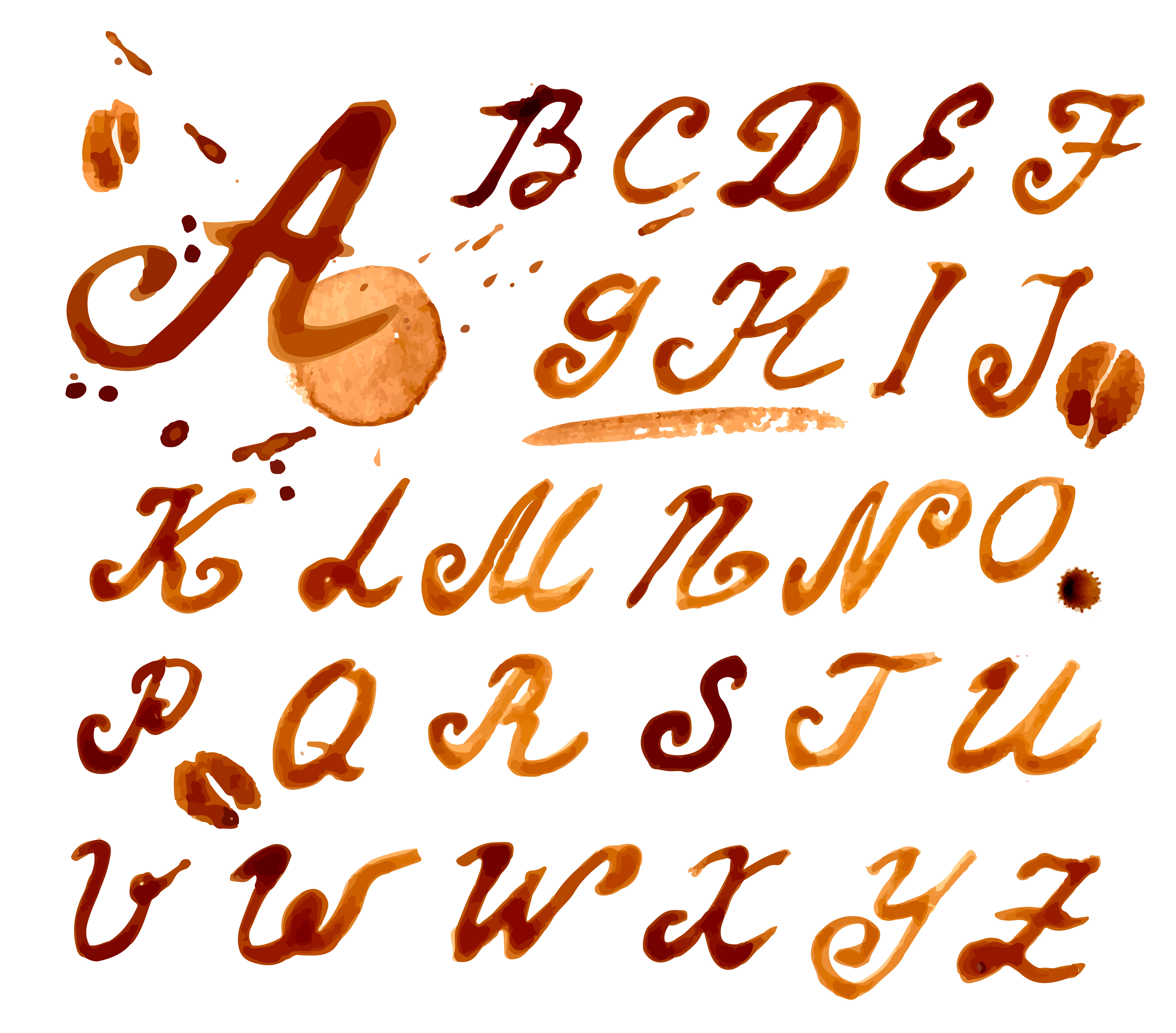
№12 Handwritten font coffee
This alphabet painted coffee. I figure later processed in the scanner, Photoshop and translated into a vector format in Adob Illustrator. The collection added splashes and stains.